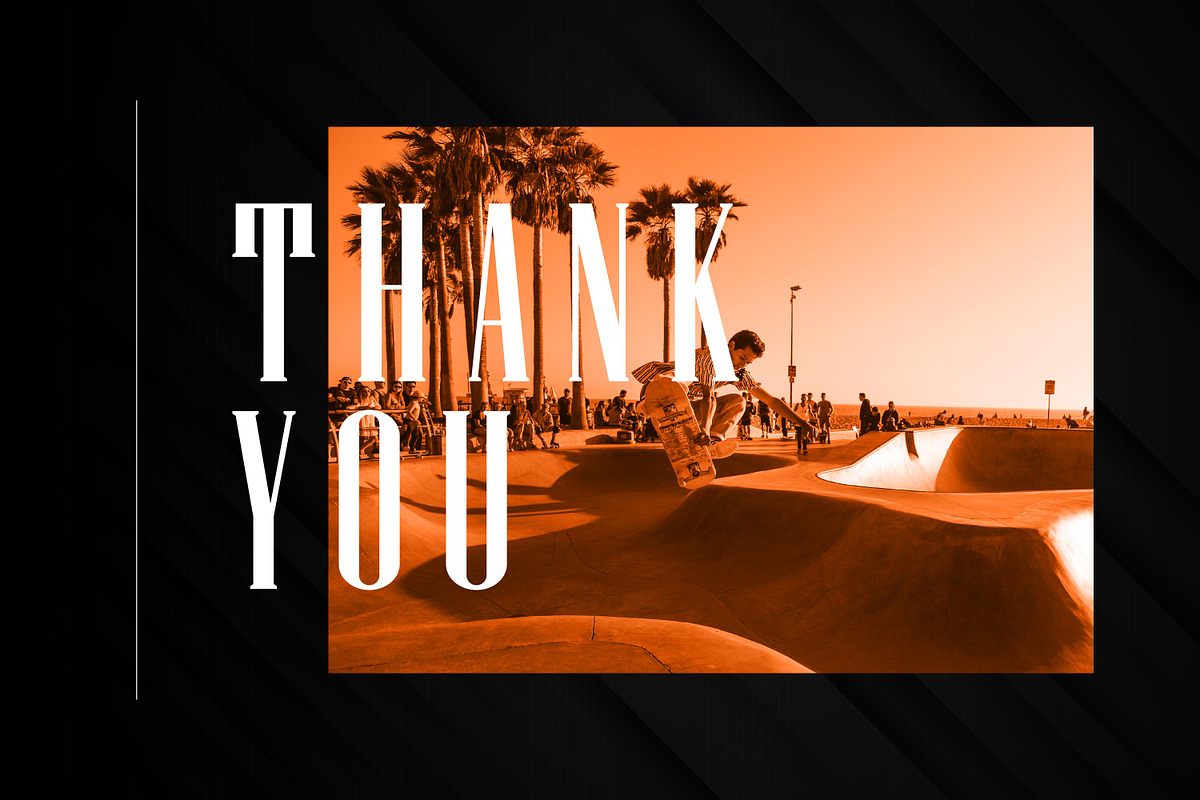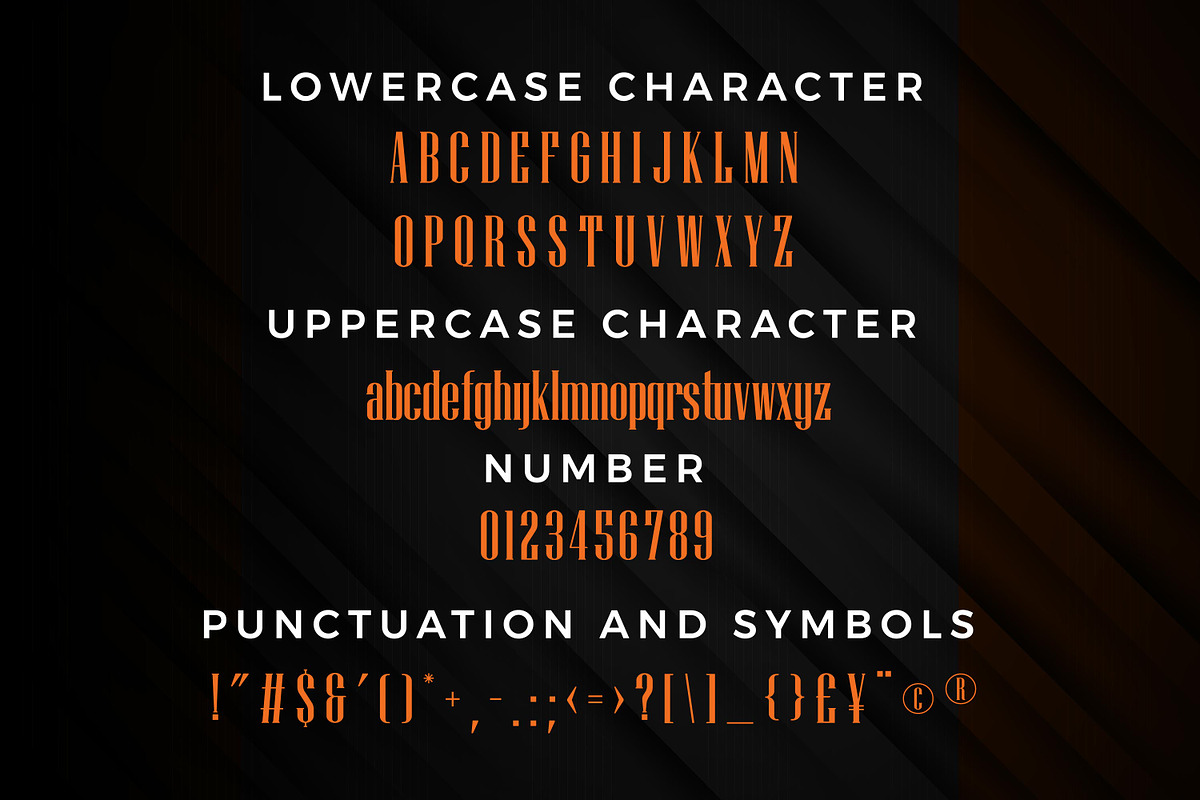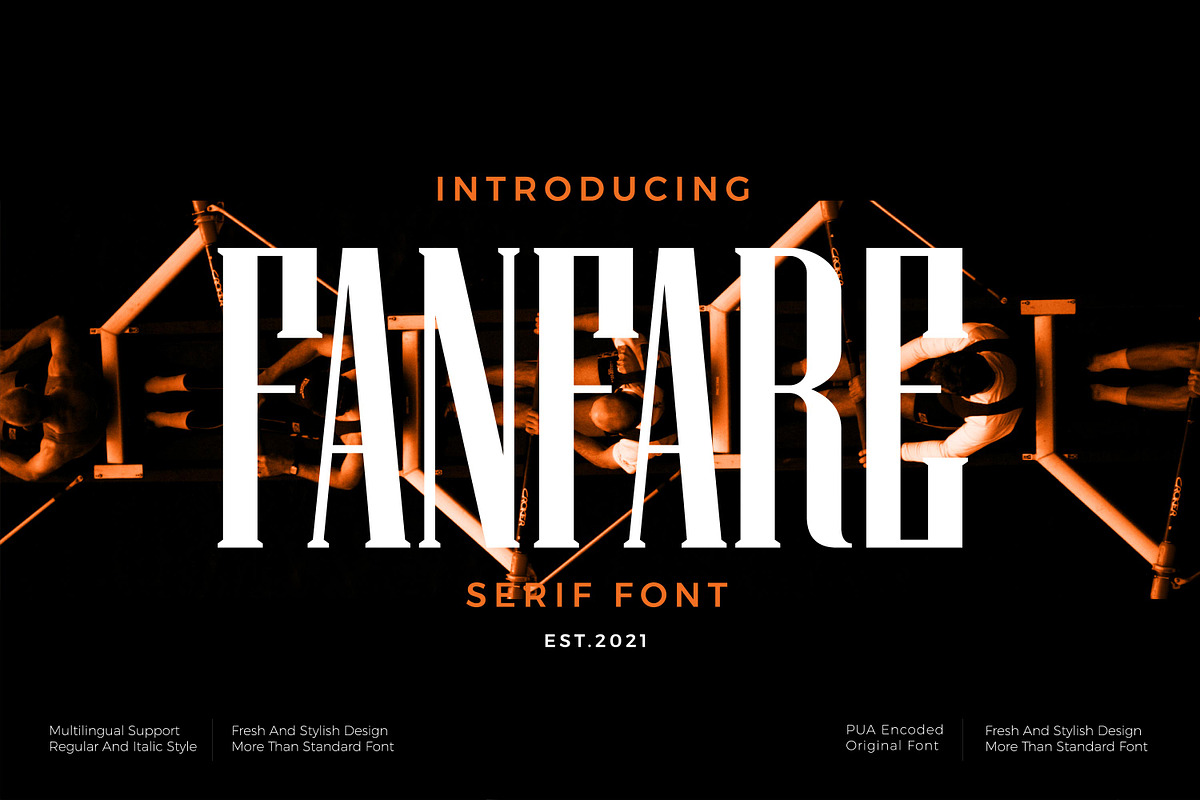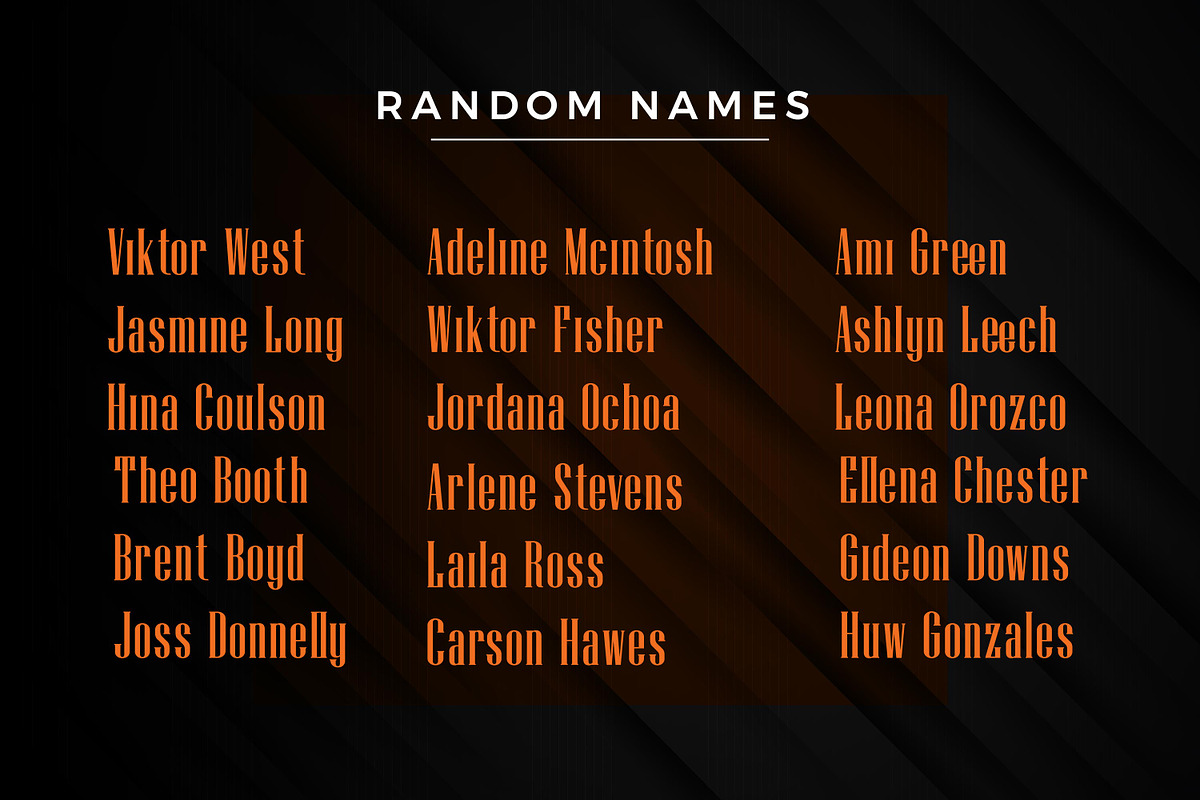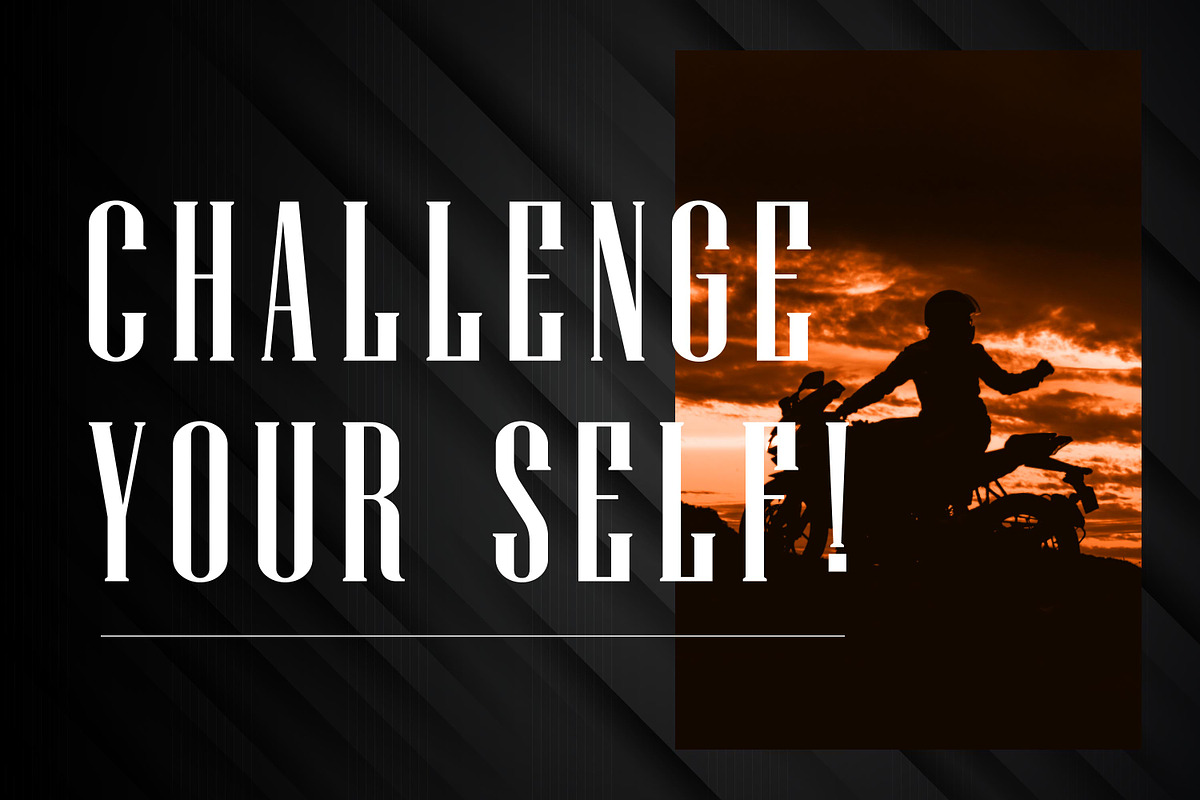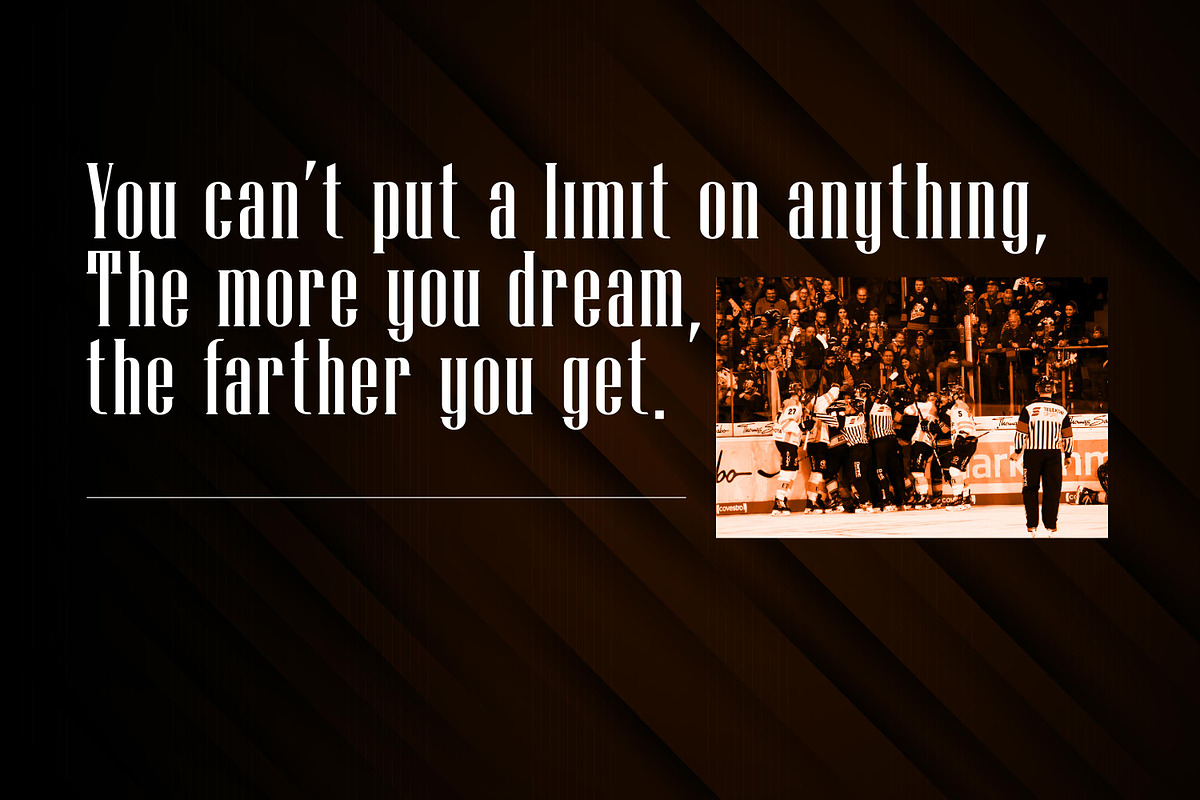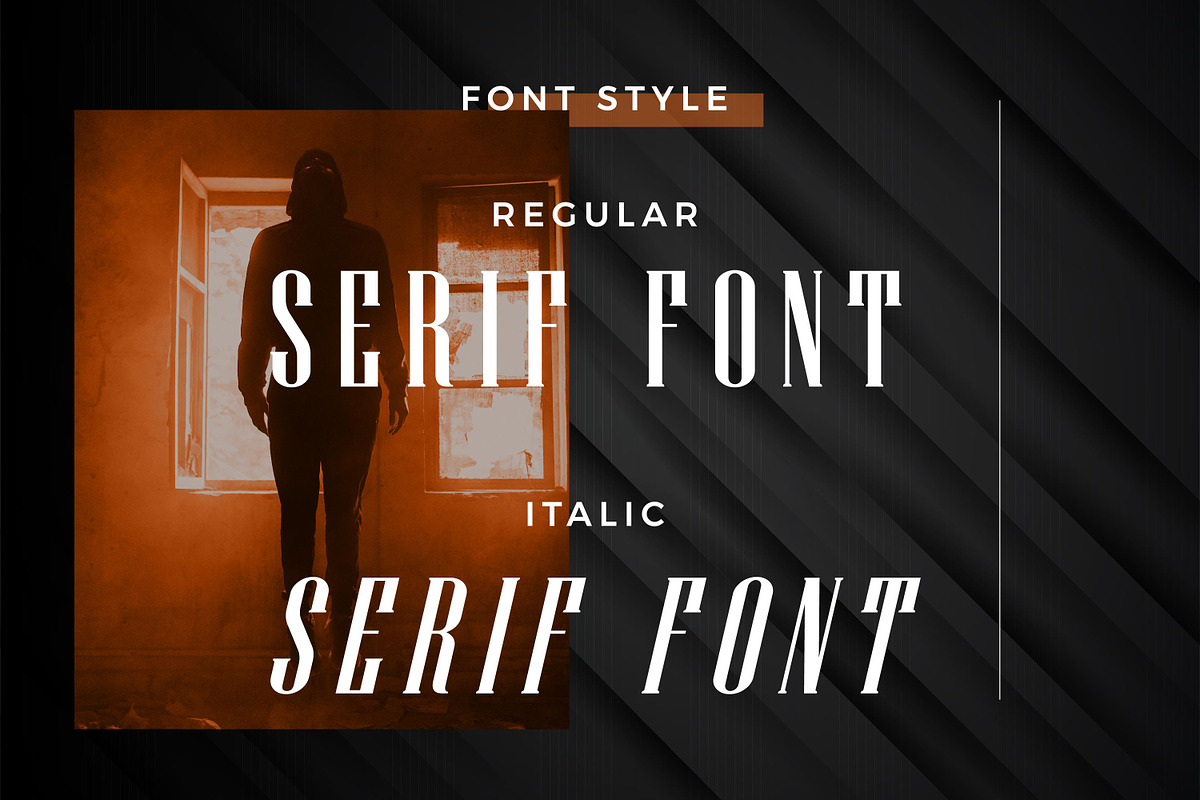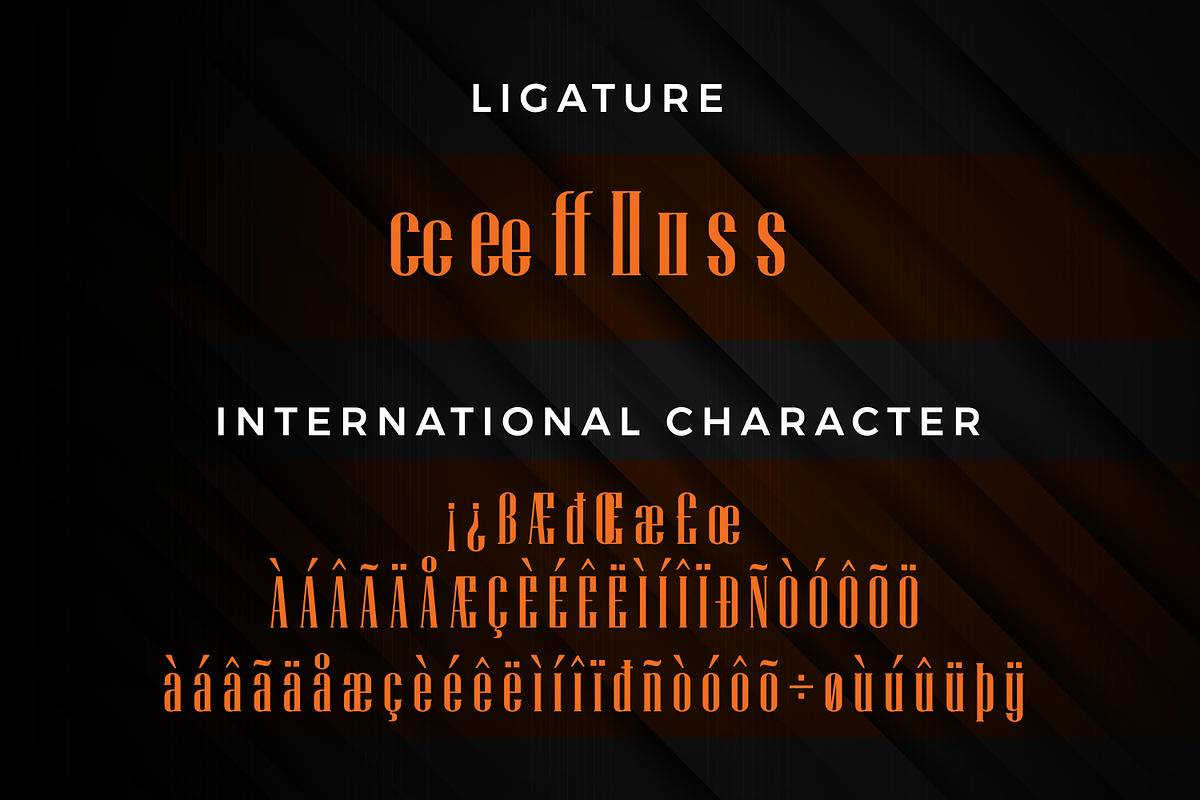
Fanfare - Serif font
Fanfare - Serif font, suitable for any projects such as: logos, branding projects, homeware designs, product packaging, mugs, quotes, posters, shopping bags, t-shirts, book covers, name card, invitation cards, greeting cards, label, photography, watermark, special events, and all your other luxury projects that need a premium signature taste